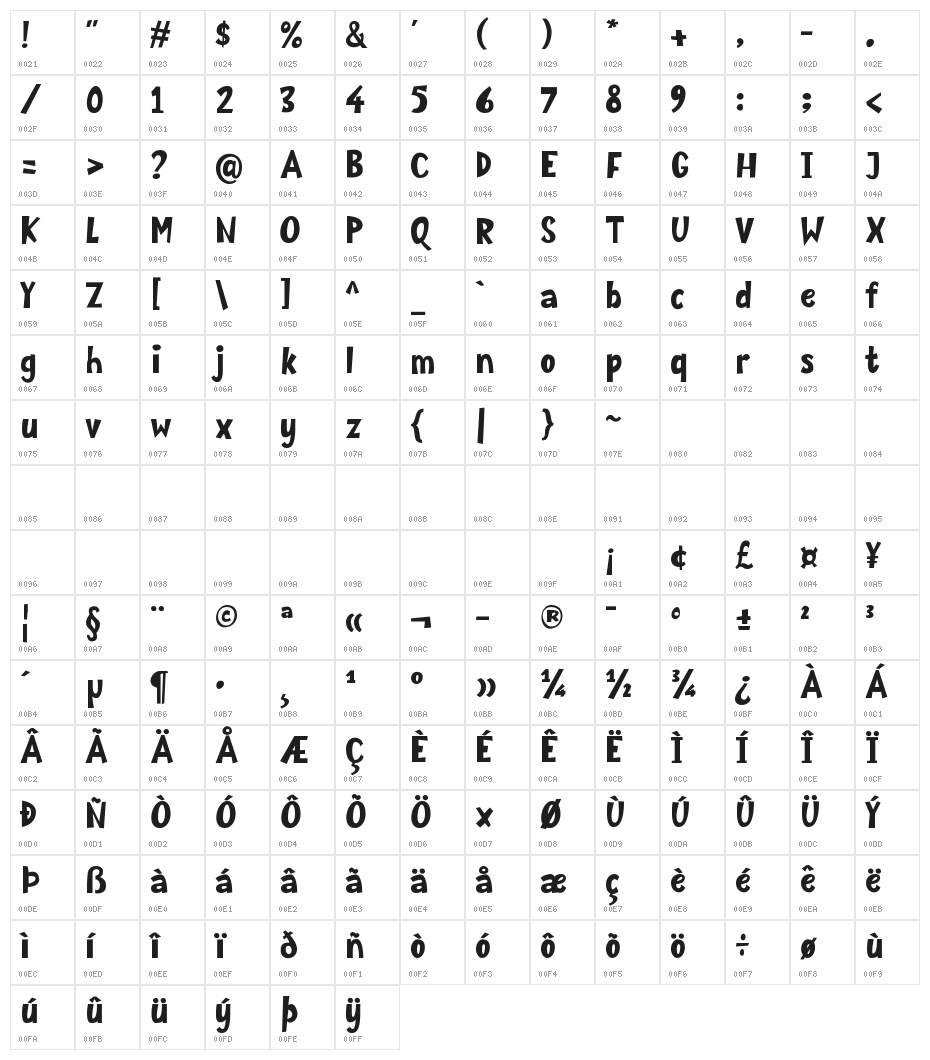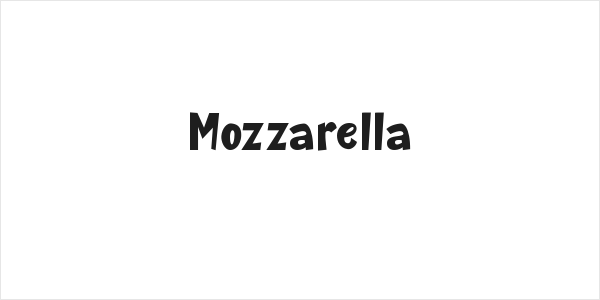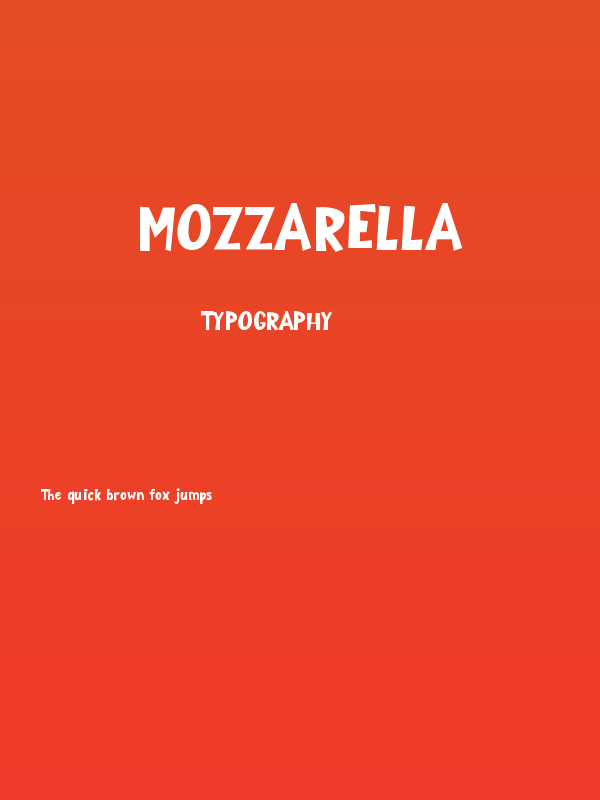
Mozzarella Font
Mozzarella Description
This playful and bold font features a whimsical design with exaggerated curves and a hand-drawn feel. The letters are slightly irregular, adding a sense of fun and creativity. The uppercase letters are bold and commanding, while the lowercase letters maintain a consistent style with a touch of quirkiness. The numbers are equally bold, ensuring they stand out. Special characters are designed to match the overall playful aesthetic, making this font ideal for projects that require a lively and engaging look.
| Proposed Projects | Perfect for children's books, playful branding, party invitations, and creative posters. |